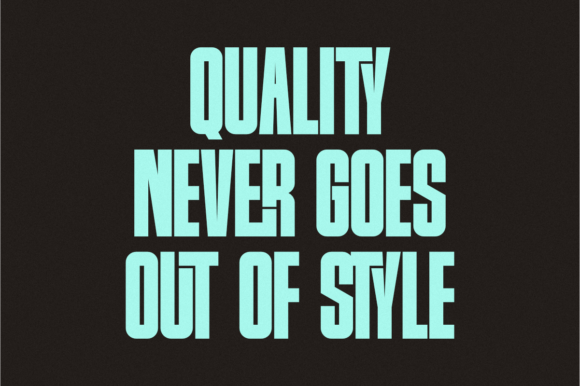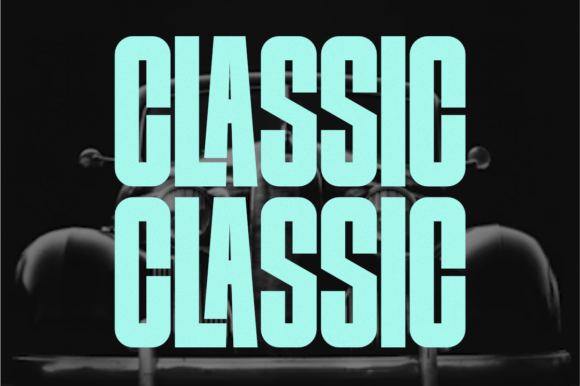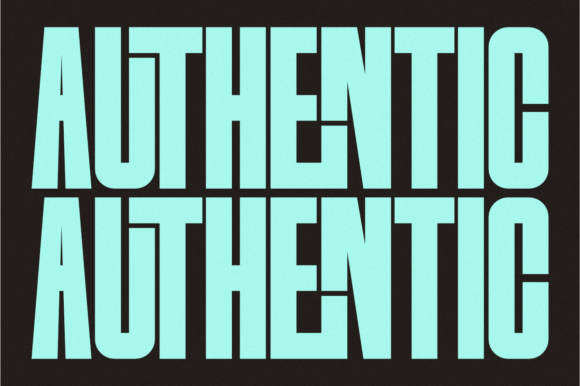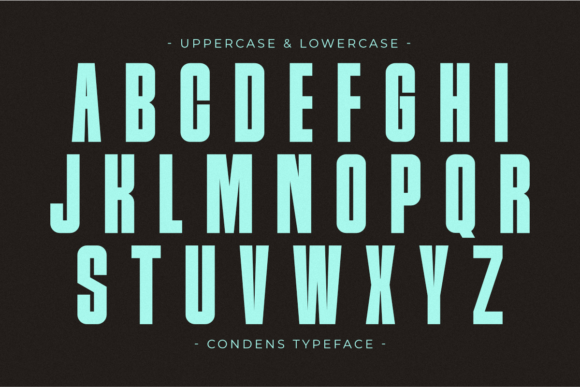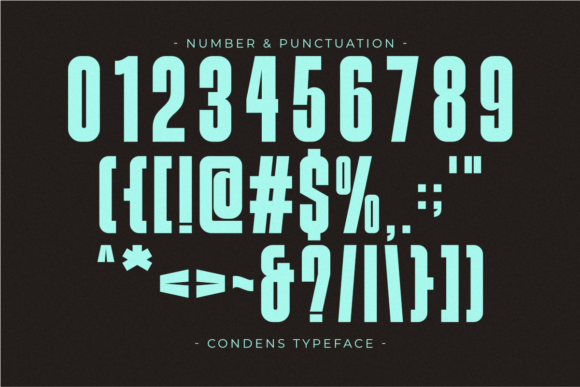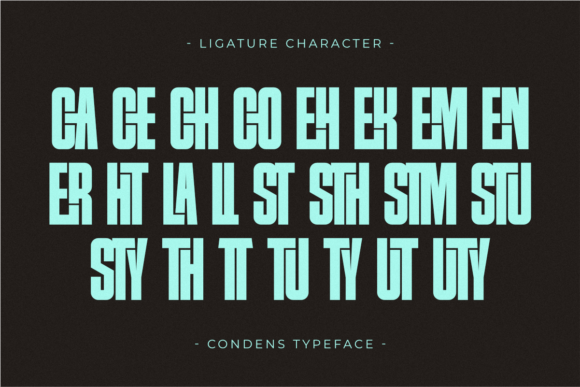
Introducing Condens Font: The Ultimate Modern Condensed Sans Serif for Professional Visibility
In the world of typography, a well-designed font can make all the difference in conveying your message effectively. For designers and crafters looking for a sleek and high-impact font, Condens Font is an excellent choice. This modern condensed sans serif font is specifically designed for professional visibility and contemporary aesthetics, making it perfect for a wide range of applications.
What is Condens Font?
Condens Font is an ultra-condensed typeface that features clean, tall lines and a bold, blocky structure. Its space-saving design and strong vertical presence make it an ideal choice for minimalist branding, corporate logos, industrial-style posters, and architectural headlines. This all-caps font ensures your message looks sharp and authoritative across digital media, high-end apparel, and sophisticated editorial layouts.
Key Features of Condens Font
• Modern Condensed Sans Serif: Condens Font boasts a sleek and contemporary design, perfect for those who want to make a statement with their typography.
• Ultra-Condensed: With its extremely narrow width, Condens Font is perfect for saving space while still making an impact.
• Clean and Tall Lines: The font’s clean lines and tall structure give it a bold and authoritative look.
• Bold and Blocky Structure: The font’s blocky structure adds to its strong and professional appearance.
• All-Caps: Condens Font is designed as an all-caps font, making it perfect for headlines, titles, and emphasis.
Use Cases for Condens Font
Condens Font is a versatile typeface that can be used in a variety of applications, including:
• Minimalist Branding: The font’s sleek and modern design makes it perfect for minimalist branding and logos.
• Corporate Logos: Condens Font’s bold and authoritative look makes it an excellent choice for corporate logos and identity.
• Industrial-Style Posters: The font’s industrial look and feel make it perfect for posters and flyers.
• Architectural Headlines: Condens Font’s strong vertical presence and clean lines make it ideal for architectural headlines and titles.
• Digital Media: The font’s modern design and clean lines make it perfect for digital media, including websites, social media, and mobile apps.
• High-End Apparel: Condens Font’s sleek and sophisticated look makes it an excellent choice for high-end apparel and fashion branding.
• Sophisticated Editorial Layouts: The font’s clean lines and bold structure make it perfect for sophisticated editorial layouts and publications.
Benefits of Using Condens Font
Using Condens Font can bring several benefits to your design projects, including:
• Professional Visibility: The font’s bold and authoritative look ensures your message is seen and heard.
• Contemporary Aesthetics: Condens Font’s modern design gives your project a fresh and contemporary look.
• Space-Saving Design: The font’s ultra-condensed design saves space while still making an impact.
• Versatility: Condens Font can be used in a wide range of applications, from digital media to high-end apparel.
Font Name Condens Font
Author Pian45
In conclusion, Condens Font is an excellent choice for designers and crafters looking for a sleek and high-impact modern condensed sans serif font. Its clean lines, bold structure, and space-saving design make it perfect for a wide range of applications, from minimalist branding to sophisticated editorial layouts. With its professional visibility and contemporary aesthetics, Condens Font is sure to make your message stand out.
Whether you’re a designer, crafter, or simply someone looking for a great font, Condens Font is definitely worth checking out. Its versatility and range of use cases make it an excellent addition to any design project.